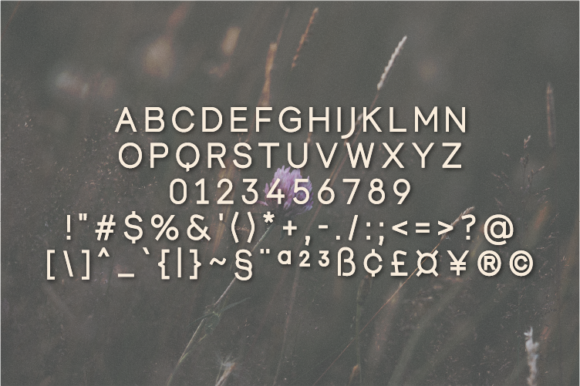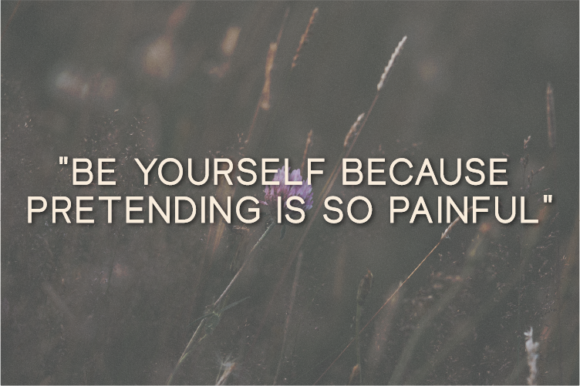
Introduction to Scarleft Font
You know that feeling when you’re working on a creative project and everything just clicks into place? The perfect combination of color, texture, and typography comes together to elevate your design from good to great. For designers, that ‘aha’ moment is often thanks to a high-quality font that adds depth and sophistication to their work. One such game-changer is the Scarleft Font – a versatile sans serif font that’s sure to become a staple in your design library.
Whether you’re working on a branding project, creating a marketing campaign, or designing a website, the Scarleft Font has the potential to take your creations to the next level. With its transparent background and clean lines, this font is the perfect design resource for anyone looking to add a touch of elegance to their work. And the best part? It’s available for a free download, making it an invaluable asset for designers of all levels.
Key Features of Scarleft Font
- High-quality, professional design for creative projects, including logos, branding, and marketing materials.
- Designed with a unique, modern aesthetic, perfect for adding a touch of sophistication to any creative project.
- Includes a wide range of characters, including uppercase and lowercase letters, numbers, and punctuation marks.
Honest Review: Scarleft Font
I recently stumbled upon the Scarleft Font, and I must say, it’s a hidden gem in the world of design resources. This high-quality font is available for a free download, making it an excellent choice for creatives on a budget.
- ✨ The font’s unique and quirky design makes it perfect for creative projects that require a touch of personality.
- ⚠️ The font may not be suitable for corporate or formal projects, as its quirky design may come across as unprofessional.
Overall, the Scarleft Font is a fantastic design resource for creatives who want to add a touch of personality to their projects. While it may have some limitations, its unique design and free download make it an excellent choice for designers on a budget.
The Scarleft Font is ideal for various creative projects, including graphic design, digital art, and even typography experiments. It’s also suitable for personal branding, logo design, and marketing materials.
To get the most out of the Scarleft Font, experiment with different font sizes, colors, and combinations. Use the font’s unique characteristics to create visually striking designs that stand out from the crowd.
The Scarleft Font is a versatile design resource that can be used for both print and digital designs. Its high-quality design and transparent background make it an excellent choice for business cards, brochures, websites, and other design projects. The font’s legibility and readability ensure that your design will look great in various contexts.